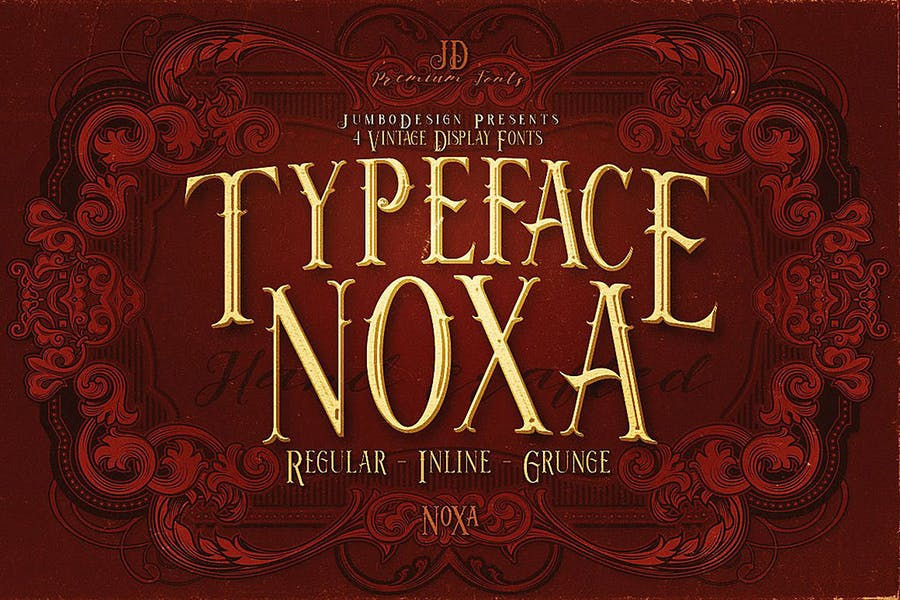
Noxa - Display Font
Noxa - Display Font is perfect for dystopian gaming interfaces, cyberpunk movie titles, dark technology brands, underground music venues, edgy fashion labels, rebellious streetwear companies, intense sports marketing, extreme entertainment venues, industrial design presentations, and provocative lifestyle campaigns.
Noxa - Display Font creates excitement because it embodies the raw intensity and rebellious power of underground culture with its aggressive letterforms and confrontational character design. The font's sharp edges and provocative aesthetic instantly convey defiant energy and countercultural strength, making any brand appear boldly rebellious and authentically underground. Its carefully engineered aggressive details and confrontational character create an immediate sense of rebellious intensity that captivates audiences seeking edgy experiences, underground quality, and products that celebrate the transformative power of rebellion and countercultural expression.
The Noxa - Display Font family includes multiple weights and styles: Regular, Bold, Black, Ultra Black, Light, Medium, Italic, Condensed, Extended, and Aggressive versions. Each variant maintains the font's signature rebellious character while offering different levels of confrontational styling and underground authenticity suitable for various edgy and provocative applications.
This powerful typeface brings the authentic spirit of underground rebellion into contemporary design with remarkable intensity and countercultural appeal. Noxa - Display Font Free Download provides edgy brands and underground organizations with access to premium rebellion-inspired typography that embodies the essence of defiant expression and countercultural strength. The font's aggressive design and underground authenticity make it ideal for businesses seeking to establish meaningful connections with rebellious audiences who appreciate countercultural values, underground aesthetics, and the transformative power of defiant expression that challenges conventional boundaries. Whether you're creating branding for underground venues, designing materials for rebellious fashion companies, developing communications for countercultural movements, or producing content for extreme entertainment platforms, this font delivers the intense underground atmosphere that resonates with audiences seeking genuine rebellion, edgy quality, and the confrontational energy that comes from embracing authentic countercultural expression. Its versatile design ensures outstanding performance across both provocative printed materials and aggressive digital underground platforms while maintaining the character of authentic rebellious typography. The font excels in applications requiring underground credibility and rebellious appeal. Countercultural professionals appreciate its ability to convey rebellious authenticity while remaining highly functional for various underground communications and provocative promotional materials. The comprehensive character set includes rebellious symbols and extensive international language support, making it perfect for global underground brands and international countercultural organizations seeking to communicate authentic rebellion, underground values, and defiant excellence to diverse worldwide audiences who embrace countercultural expression, seek rebellious experiences, and value the transformative power of genuine underground culture that challenges societal norms through bold expression, defiant creativity, and the unstoppable force of authentic rebellion that refuses to conform to conventional expectations.